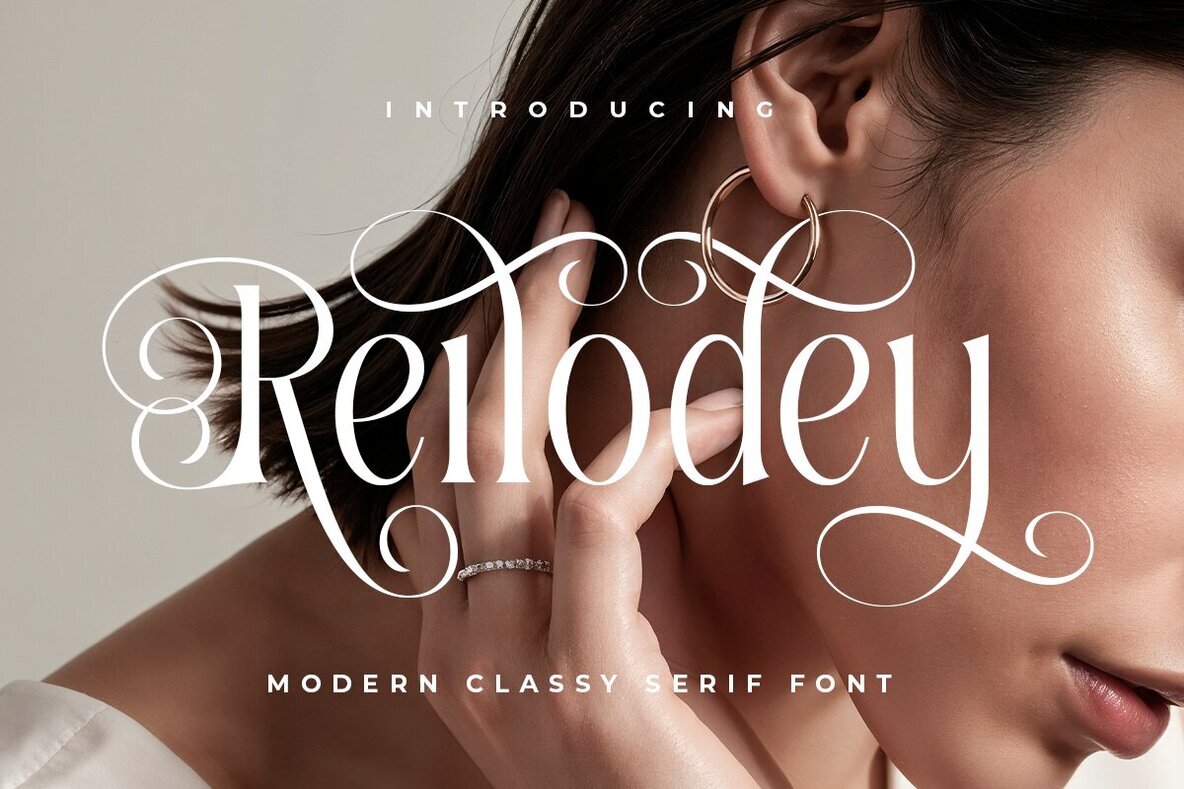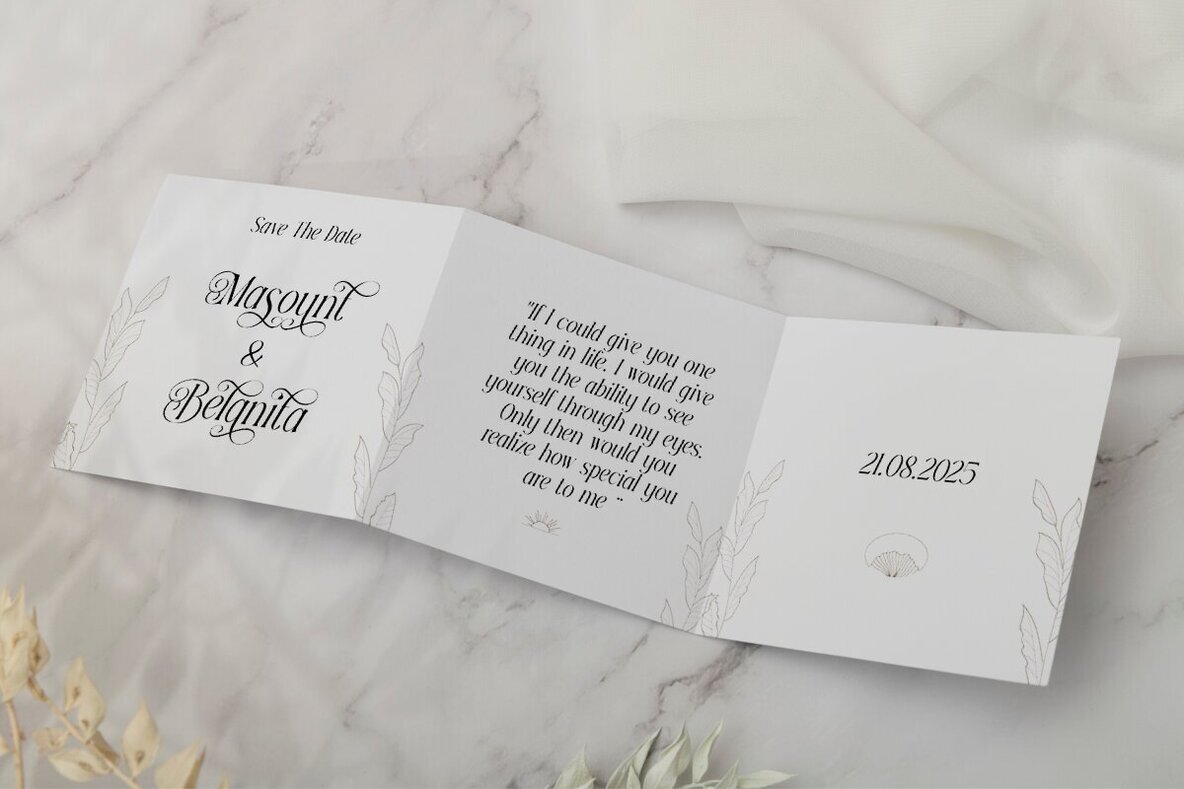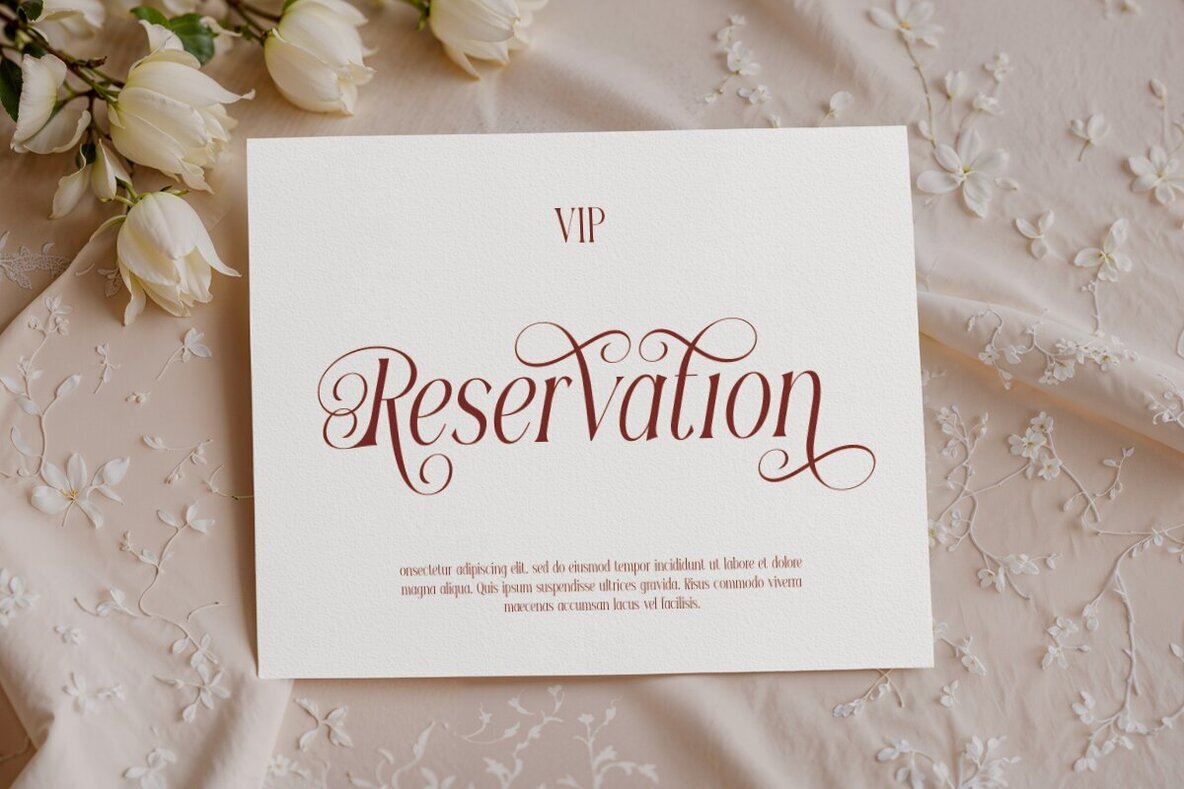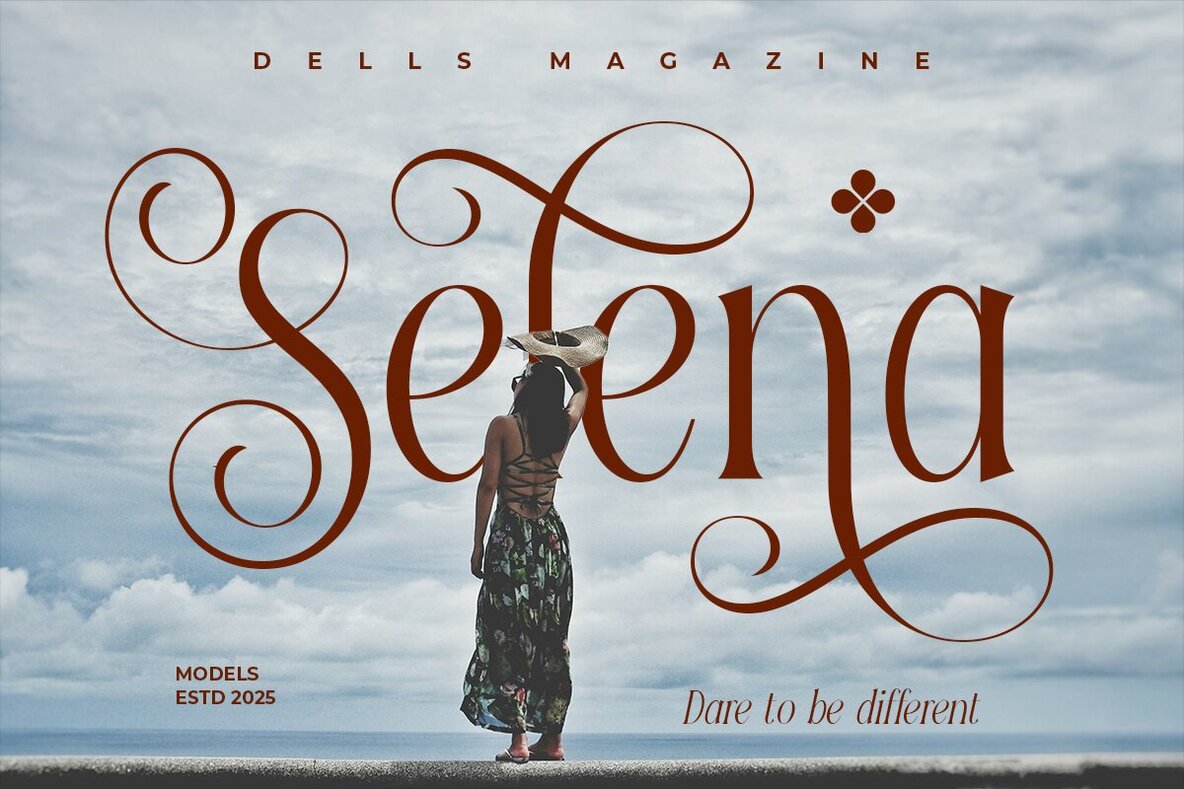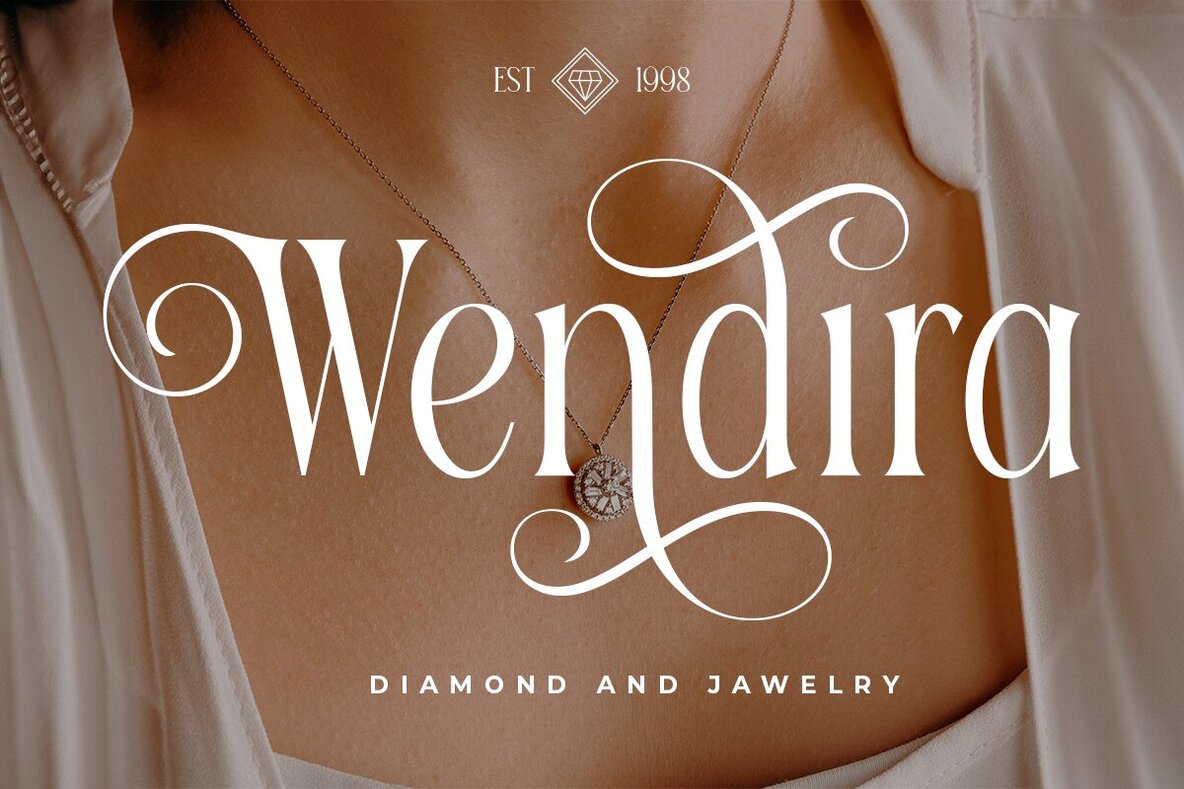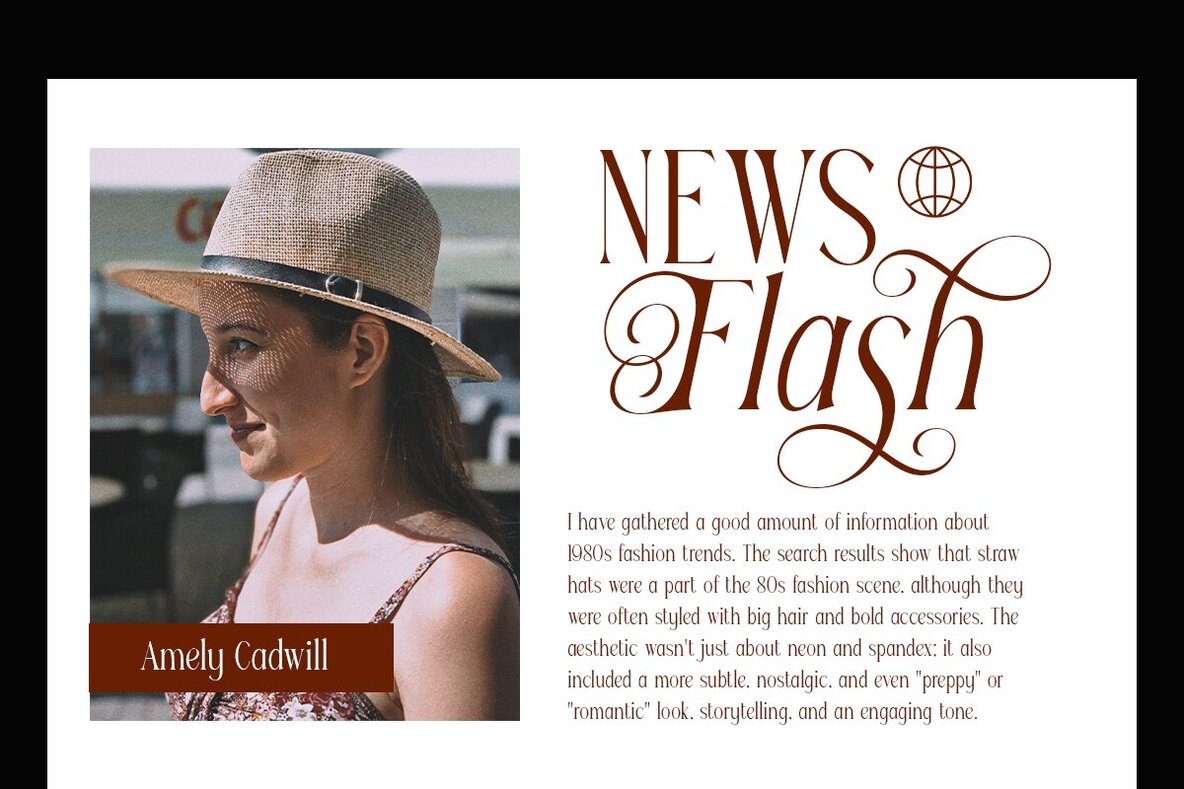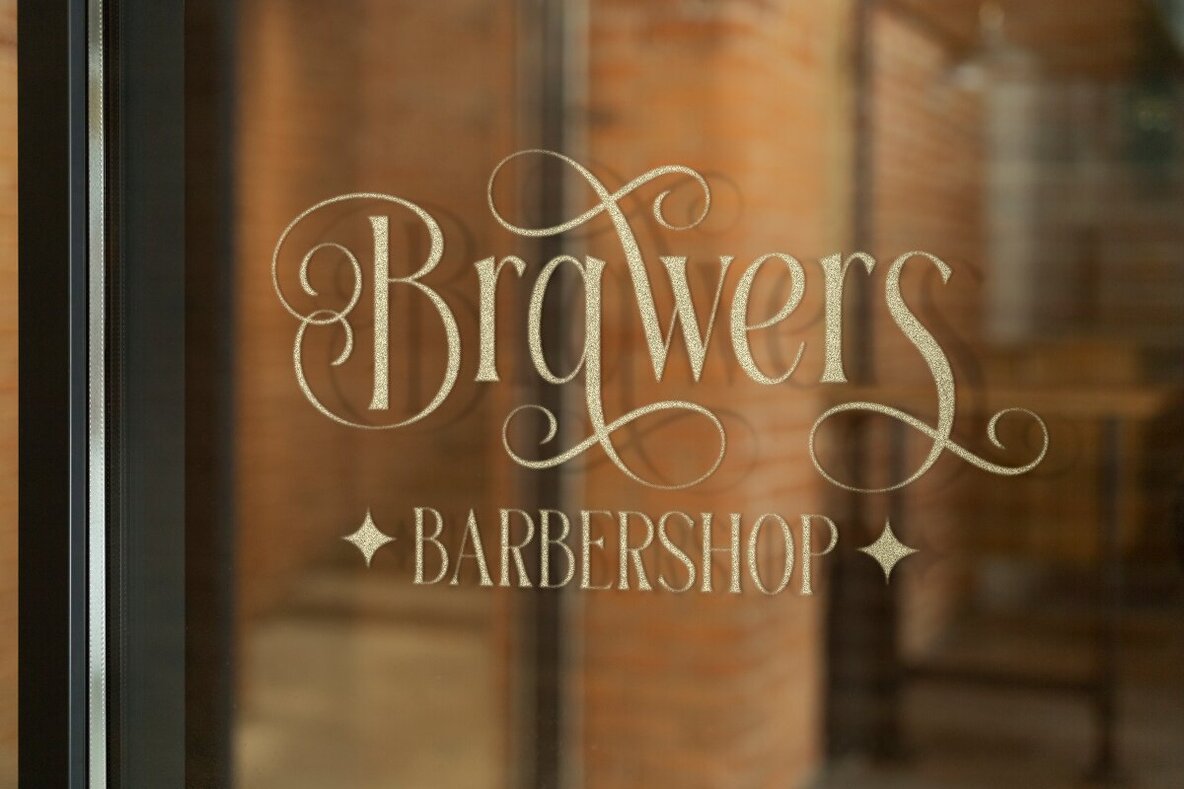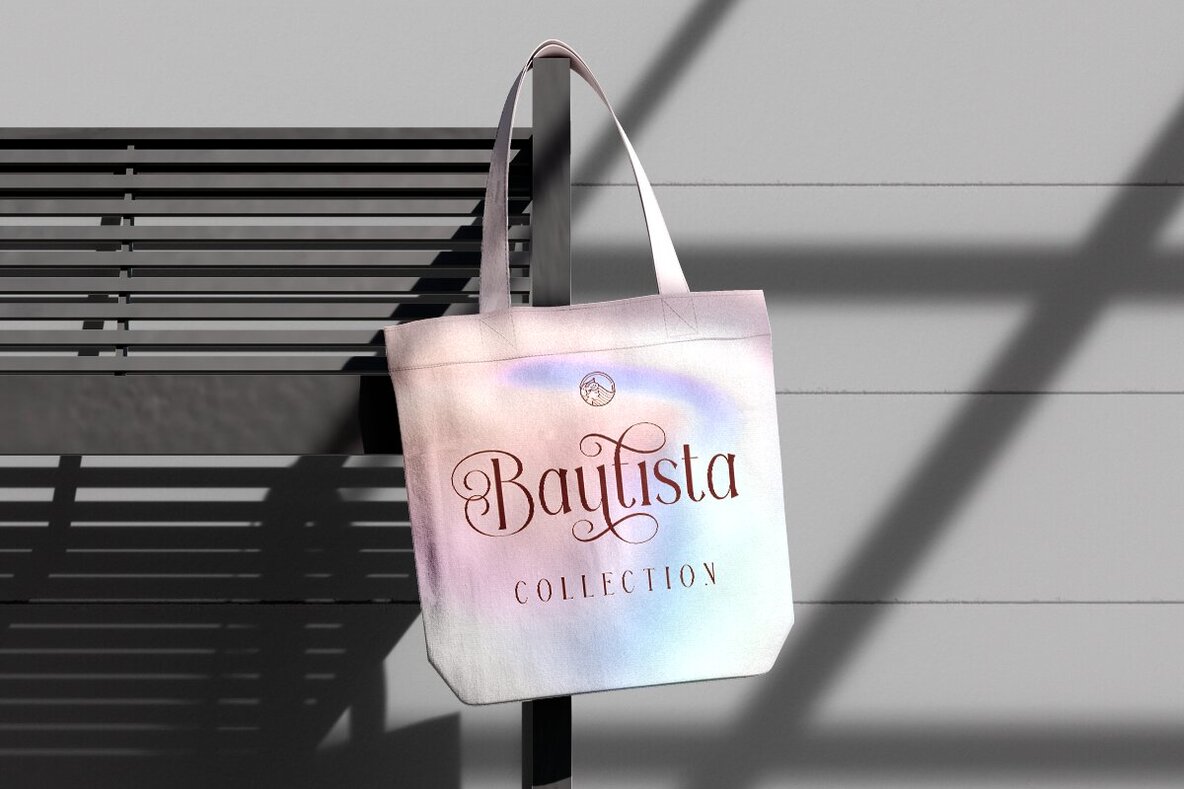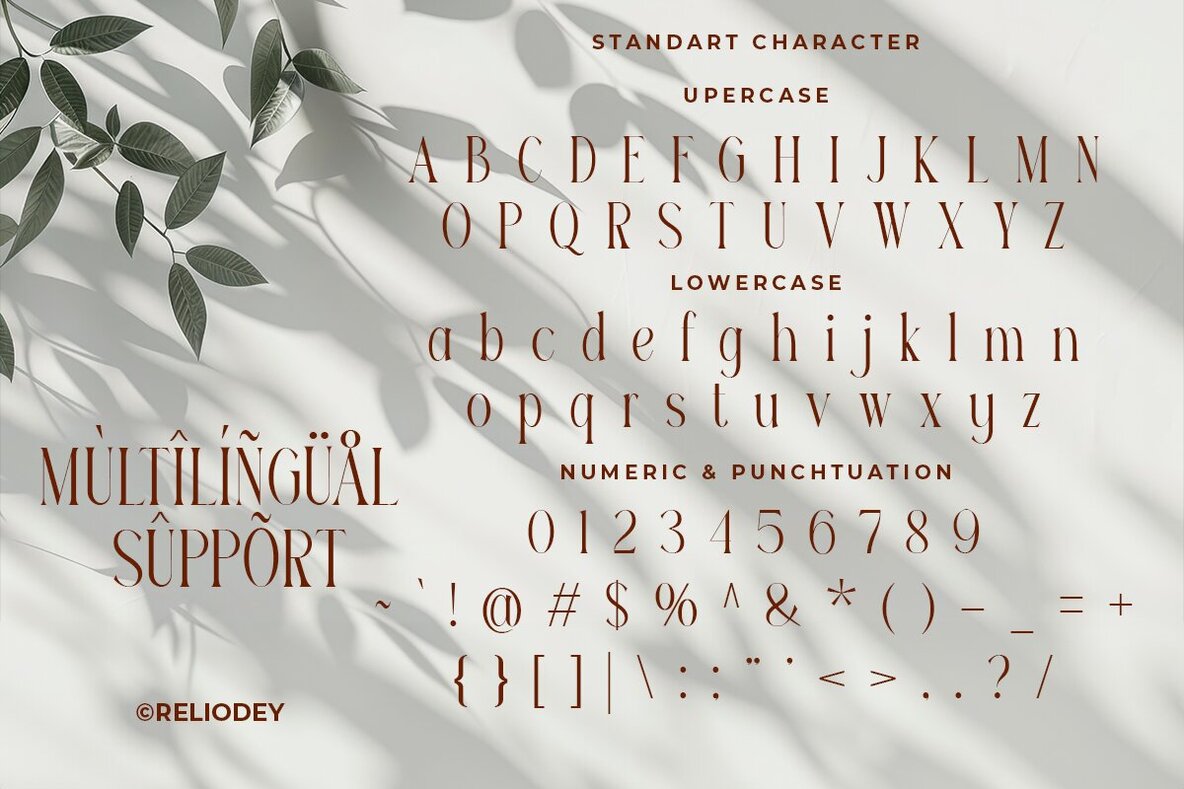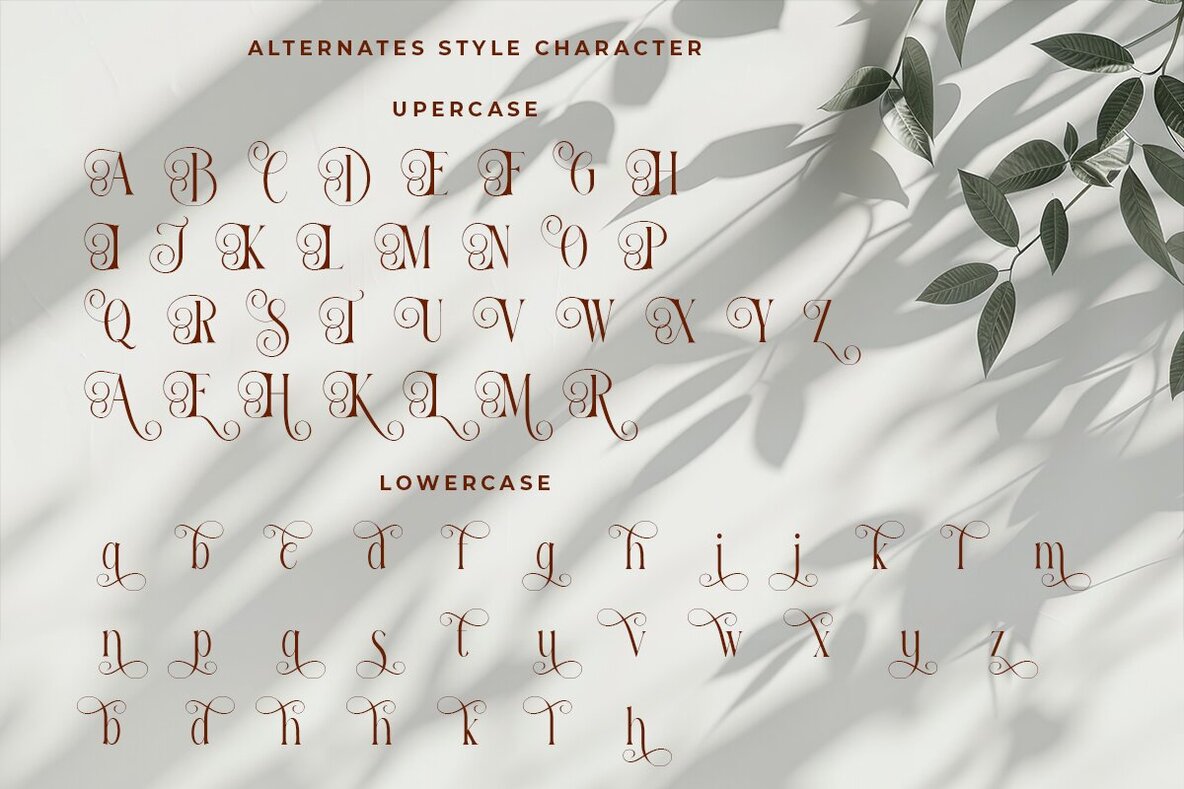
Reilodey Font
Reilodey is a sophisticated serif font, drawing inspiration from timeless classical calligraphy. Designed with thin, condensed strokes, this elegant typeface offers a minimalist yet luxurious appeal. Its versatility makes it an ideal choice for various projects, infusing a sense of style and refinement into each.Reilodey: A Blend of Elegance and Modernity
Perfect for Diverse Applications